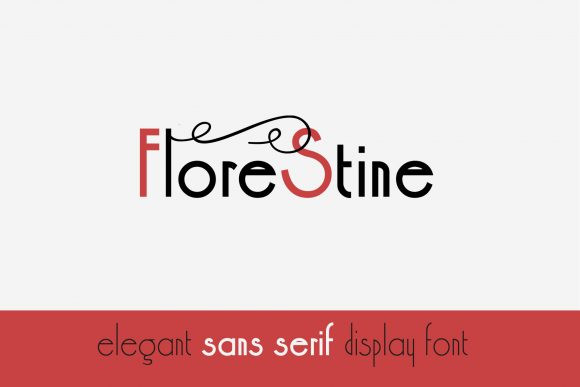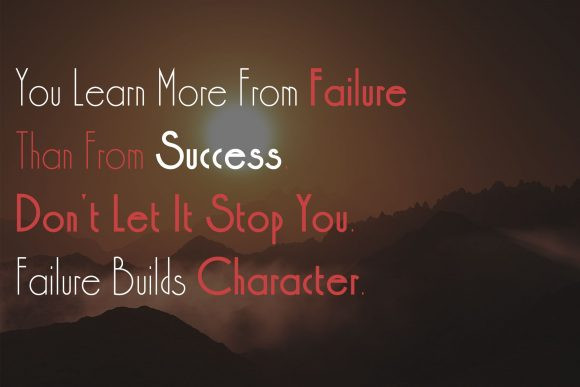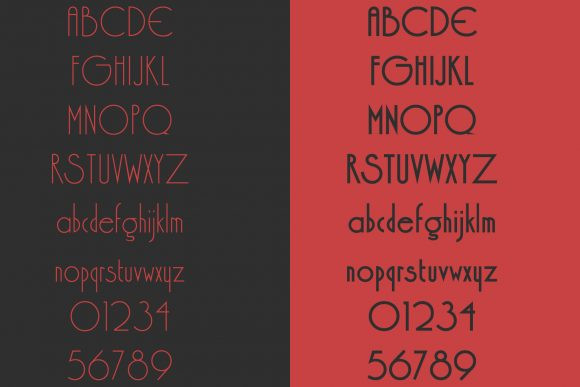
Florestine Font
Florestine is a minimal, yet elegant sans serif font. Suitable to a wide variety of designs due to its neat and simple style, Florestine has the potential to become your favorite go-to font, no matter the occasion!